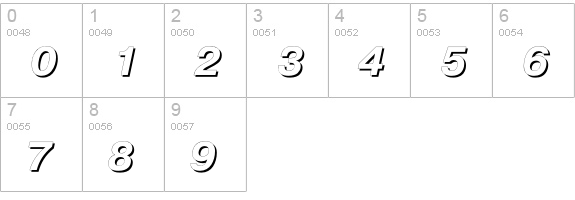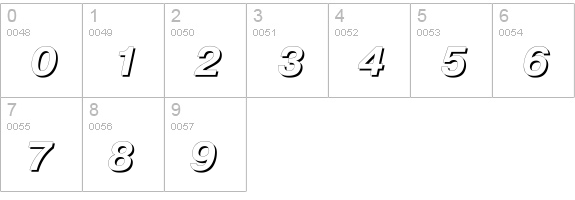
Pragmatica Shadow Oblique Font Details
Pragmatica Shadow Oblique is a distinctive, italic variant in the Pragmatica typeface family \xE2\x80\x94 well suited to design and typography projects.
Pragmatica Shadow Oblique font is a versatile and elegant typeface that adds a touch of sophistication to any design project. With its unique shadow effect and stylish oblique slant, this font exudes a sense of modernity and professionalism. The clean lines and sharp angles make it perfect for a wide range of applications, from branding and advertising to editorial design and web content. One of the best things about Pragmatica Shadow Oblique font is that it is completely free to download and use. You can easily access this font at FontsMarket.com, where you can find a wide selection of high-quality fonts for all your design needs. Don't miss out on the opportunity to enhance your projects with the timeless elegance of Pragmatica Shadow Oblique font. Download it today and elevate your designs to the next level.